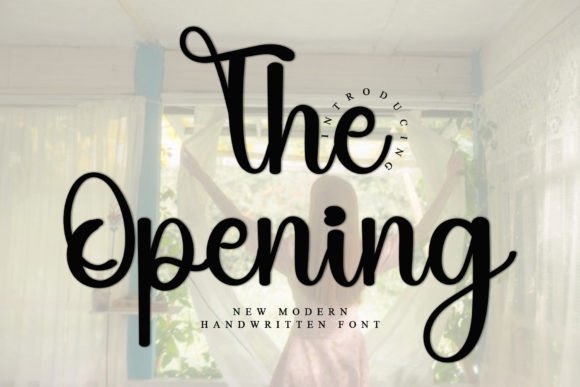
Journey into a world of enchantment with The Opening Font, a creation of PiPi Creative that's destined to cast a spell on your projects. This exquisitely handwritten font dances across the digital page like a whisper from a bygone era, effortlessly blending the elegance of calligraphy with a modern, refreshing twist. Prepare to be captivated by its timeless charm as it adds an air of sophistication to your designs.
Picture your words dancing across the screen, adorned with The Opening's graceful curves and delicate flourishes. Each letter, a work of art in itself, flows seamlessly into the next, creating a visual symphony that captivates the eye. Transport your audience to a realm of enchantment, where their imaginations are set ablaze by the sheer beauty of your typography.
Unleash your creativity and explore the endless possibilities that await with The Opening Font. Its versatility knows no bounds, making it the perfect choice for a myriad of projects. Craft captivating logos that leave a lasting impression, design enchanting invitations that evoke a sense of wonder, or create social media posts that radiate elegance and grace. The Opening Font is your magic wand, ready to transform your words into spells that cast a charm on all who behold them.
Indulge in the beauty of The Opening Font and watch as your projects take on a life of their own. Let its elegance elevate your designs to new heights, captivating audiences with its timeless allure. Embrace the magic of this extraordinary font and embark on a creative journey like no other.